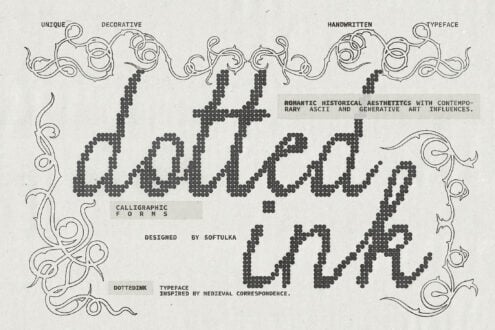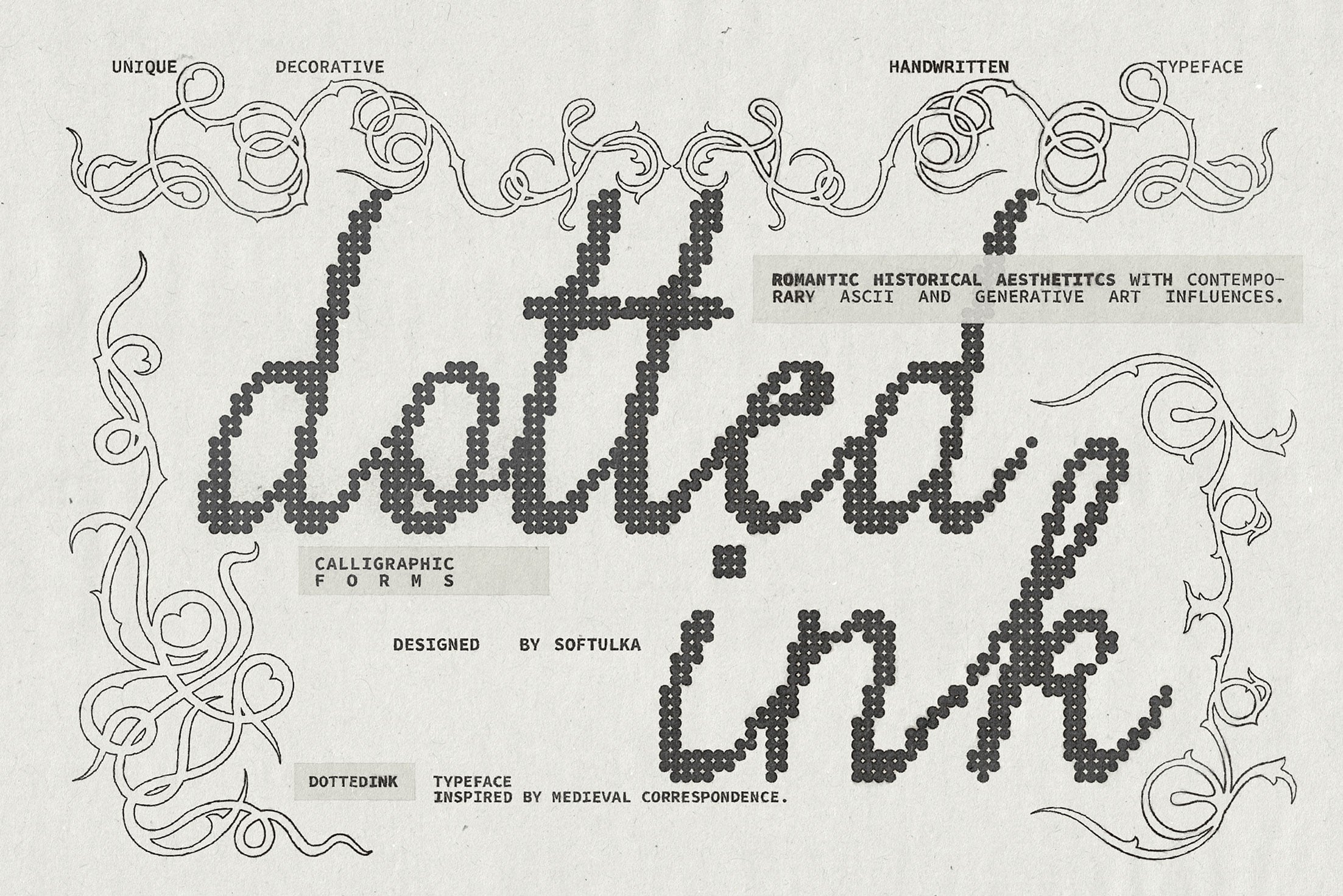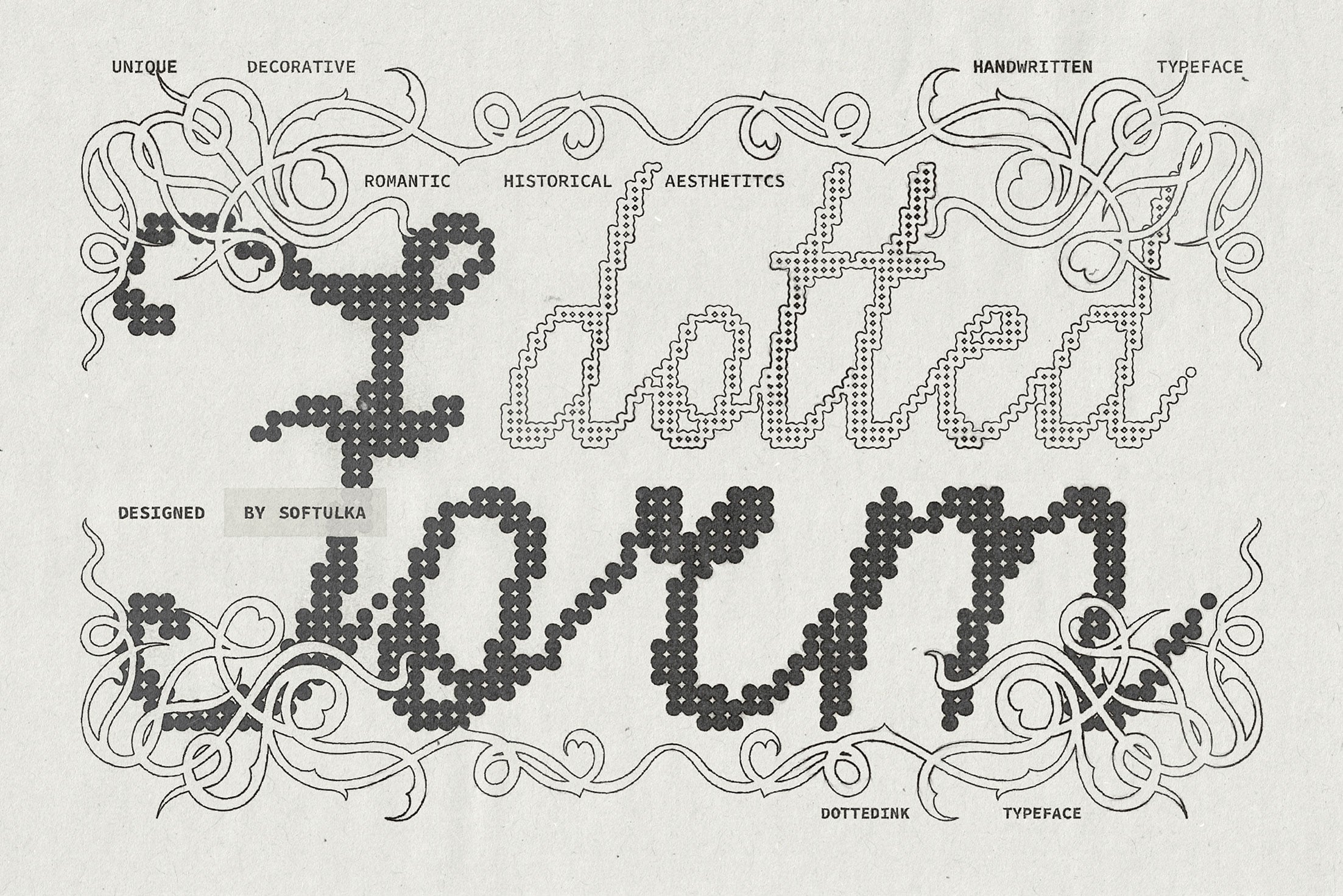
Dotted Ink - a decorative handwritten typeface inspired by medieval correspondence, illuminated manuscripts, and flowing calligraphic forms. Built from circular structures, dotted..geometry, and procedural-inspired details, it blends romantic historical aesthetics with contemporary ASCII and procedural art influences. Ideal for branding, book covers, editorial design, invitations, fantasy projects, and artistic typography.